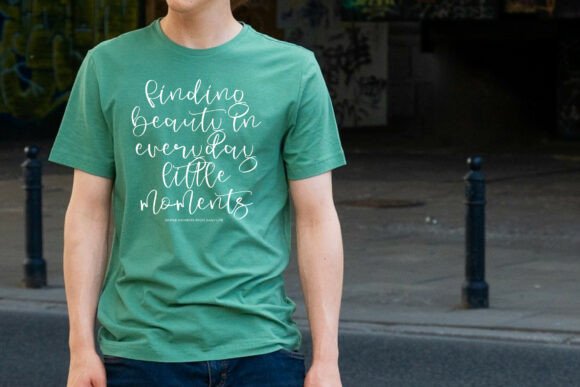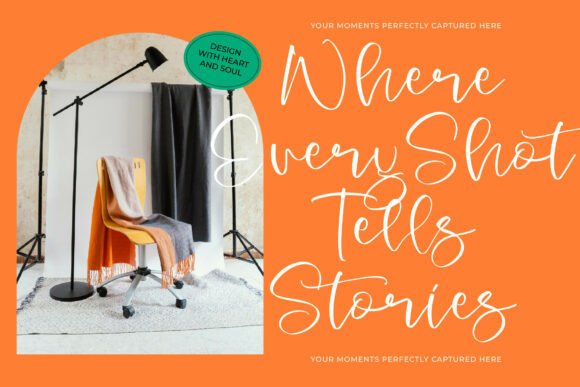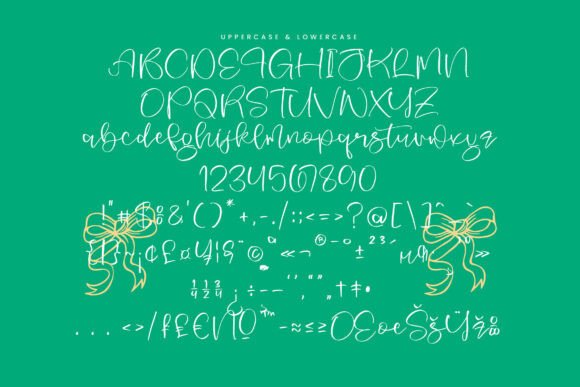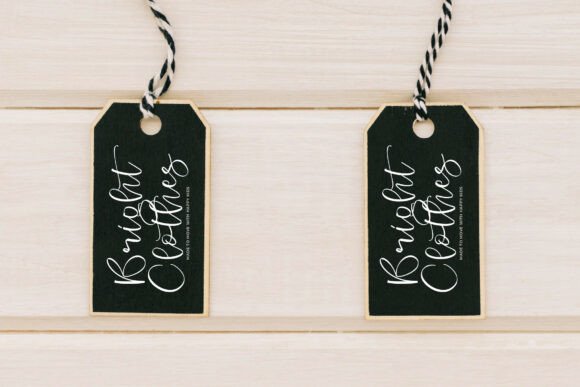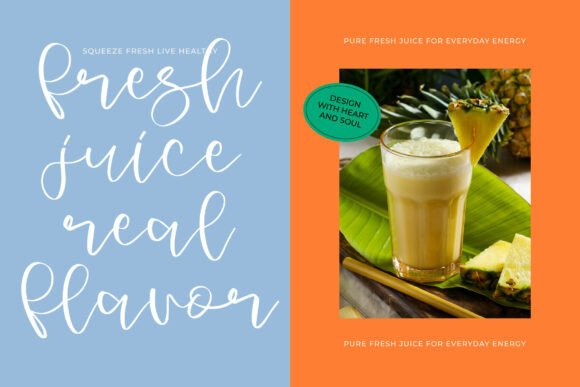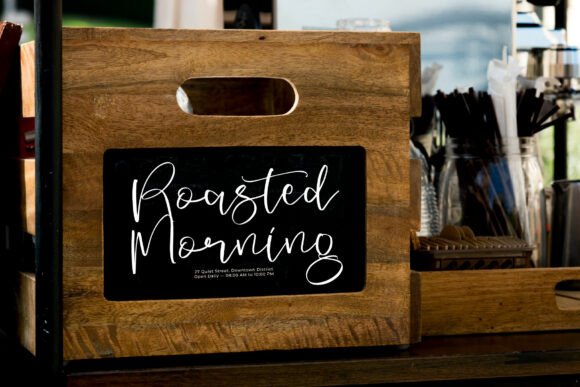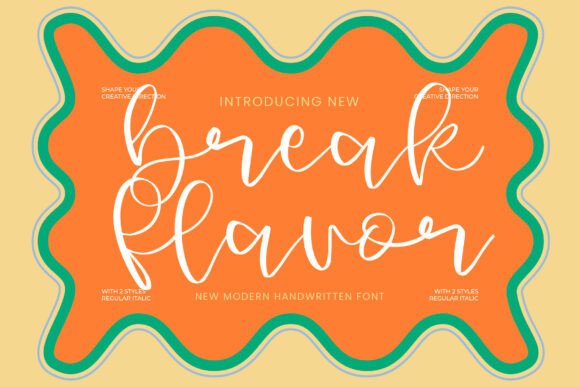
Introducing Break Flavor: The Modern Handwritten Script to Elevate Your Designs
In the world of typography, a good font can make all the difference in capturing the essence of a brand or design. If you’re looking for a typeface that injects a burst of energy into your creations, look no further than Break Flavor, a modern handwritten script font. With its perfect balance of casual style and clean, rhythmic flow, Break Flavor is an exceptional choice for designers and crafters seeking to add a touch of personality to their work.
What Sets Break Flavor Apart
Break Flavor is more than just a font – it’s a statement. This modern handwritten script typeface features bouncy letterforms and smooth, organic curves that feel authentically human. The result is a friendly, approachable aesthetic that’s perfect for designs that need a playful yet professional personality. Whether you’re working on food and beverage branding, lifestyle blog headers, or social media content, Break Flavor is the ideal choice to make your designs stand out.
Two Distinct Styles to Suit Your Needs
Break Flavor is available in two distinct styles: Regular and Italic. This allows you to add variety and depth to your designs, using the Regular style for main text and the Italic style for emphasis or to create visual interest. The two styles work seamlessly together, ensuring a cohesive look that elevates your designs.
Break Flavor’s versatility makes it an excellent choice for a range of design applications. Here are just a few examples:
- Food and Beverage Branding: Add a touch of warmth and personality to your brand with Break Flavor. The font’s friendly, approachable aesthetic makes it perfect for restaurants, cafes, bakeries, and food bloggers.
- Lifestyle Blog Headers: Create eye-catching headlines and titles with Break Flavor. The font’s modern, handwritten style adds a touch of sophistication to any blog or website.
- Social Media Content: Make your social media content stand out with Break Flavor. The font’s playful, yet professional personality is perfect for creating engaging posts, stories, and ads.
Why Choose Break Flavor?
With so many fonts available, why choose Break Flavor? Here are just a few reasons:
- Unique Personality: Break Flavor has a distinct, friendly personality that sets it apart from other fonts.
- Clean and Legible: Despite its handwritten style, Break Flavor is remarkably clean and legible, making it perfect for body text and headlines.
- Versatile: Break Flavor’s two distinct styles and range of applications make it an excellent addition to any designer’s toolkit.
Tips for Using Break Flavor Effectively
To get the most out of Break Flavor, here are a few tips:
- Mix and Match: Combine Break Flavor with other fonts to create visual interest and add depth to your designs.
- Experiment with Colors: Break Flavor looks great in a range of colors, so don’t be afraid to experiment and find the perfect hue for your design.
- Play with Size: Break Flavor’s clean, legible design makes it perfect for use at a range of sizes, from small body text to large headlines.
In conclusion, Break Flavor is a modern handwritten script font that’s sure to elevate your designs. With its perfect balance of casual style and clean, rhythmic flow, this typeface is an exceptional choice for designers and crafters seeking to add a touch of personality to their work. Whether you’re working on food and beverage branding, lifestyle blog headers, or social media content, Break Flavor is the ideal choice to make your designs stand out. So why wait? Try Break Flavor today and inject a burst of energy into your designs!